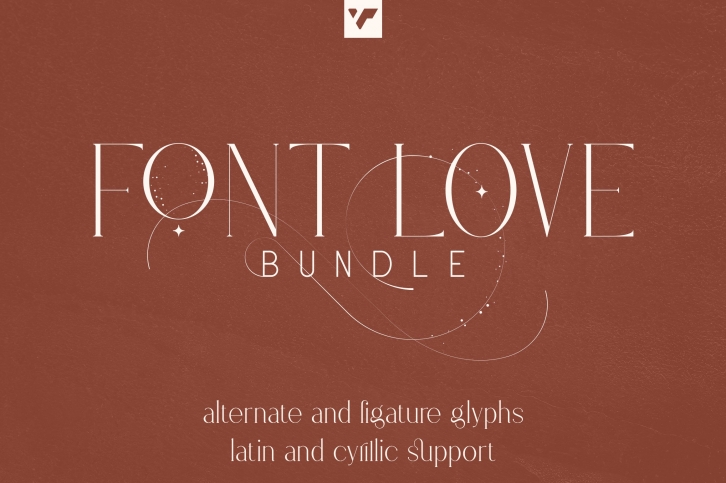
Love Bundle is a trendy and unique font with an authentic style. It was designed by VPcreativeshop and it's a great choice for creative people who need such a font. It was released on May 9, 2022 and the file size is 11.45 MB. Love Bundle will add an organic vibe to any design idea!